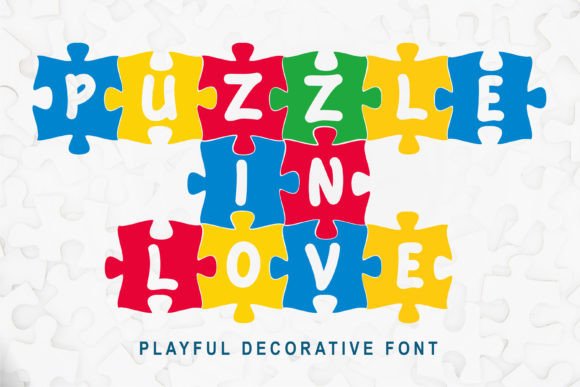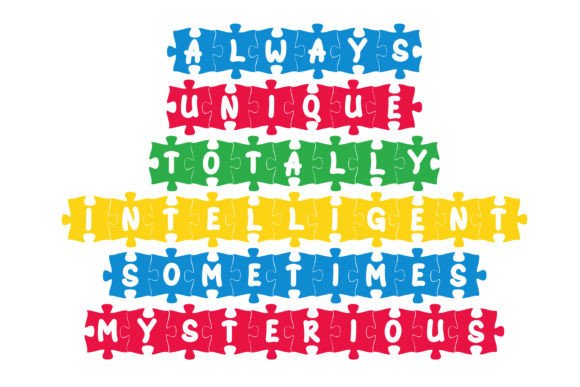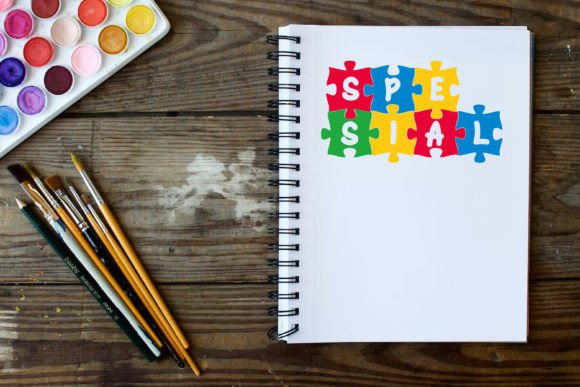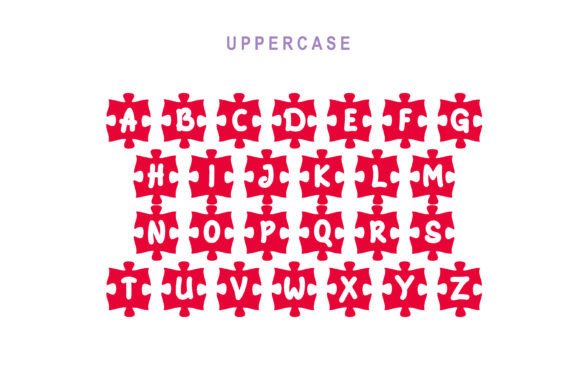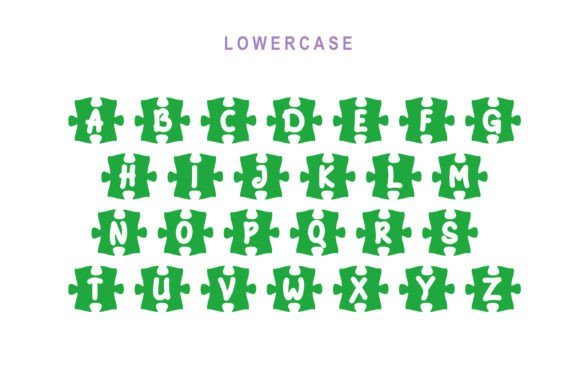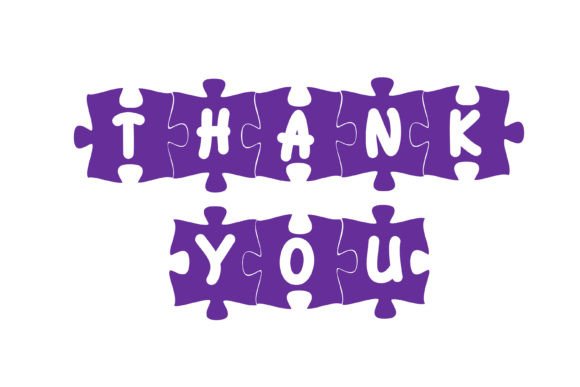
Puzzle in Love Font
Puzzle in Love is a unique and fun playful decorative font, featuring countinous puzzle pieces. Add this font to your creative ideas.